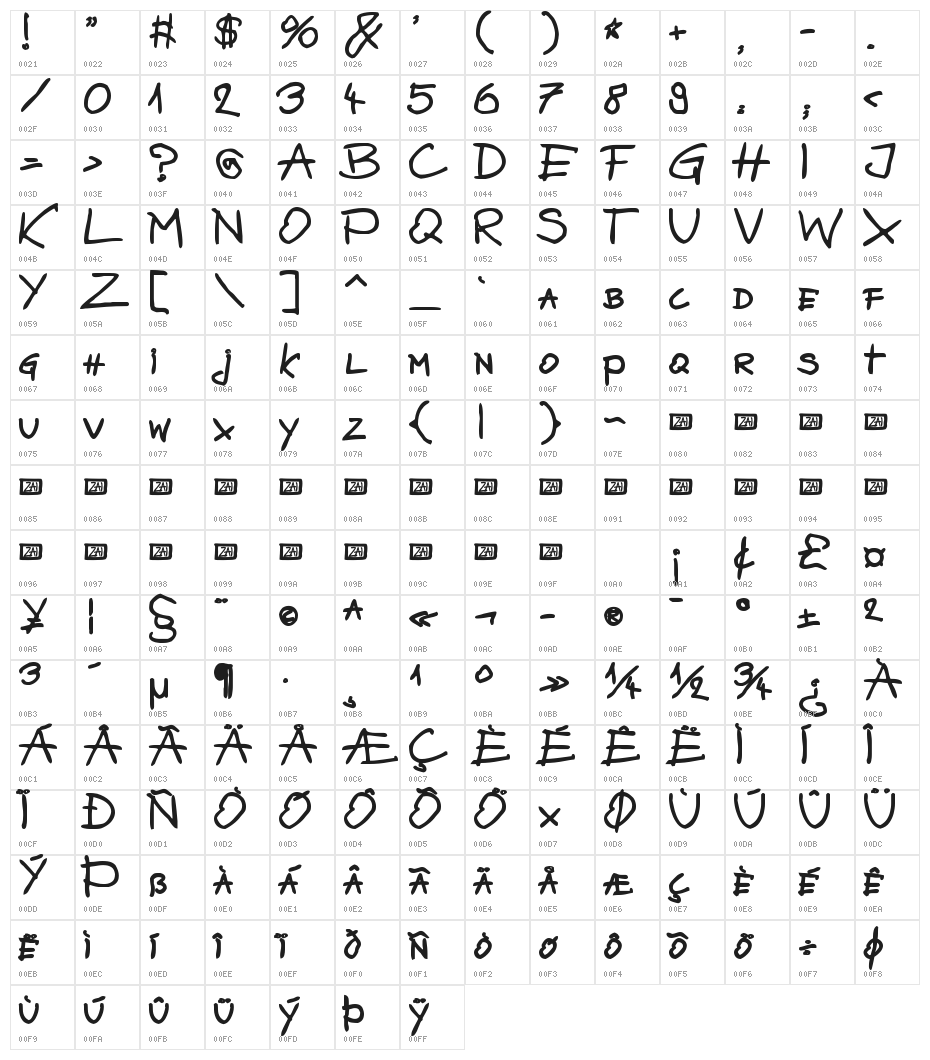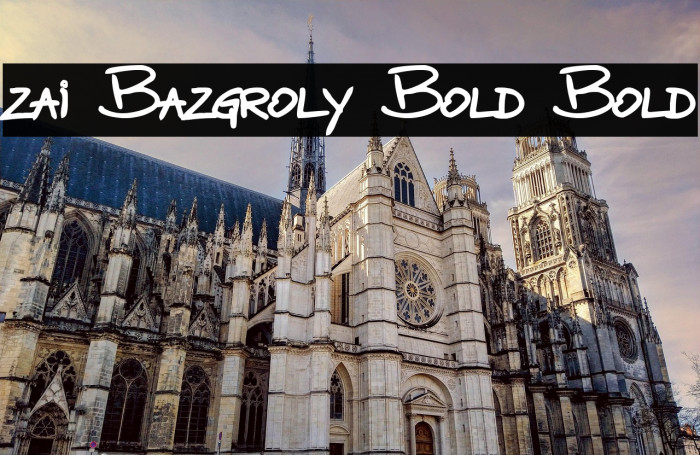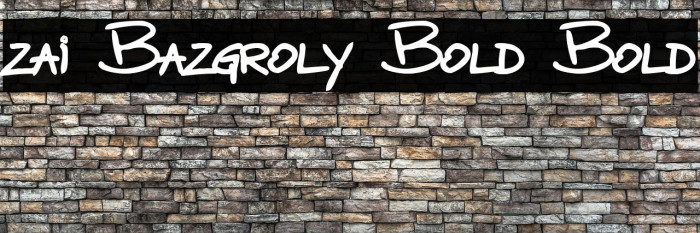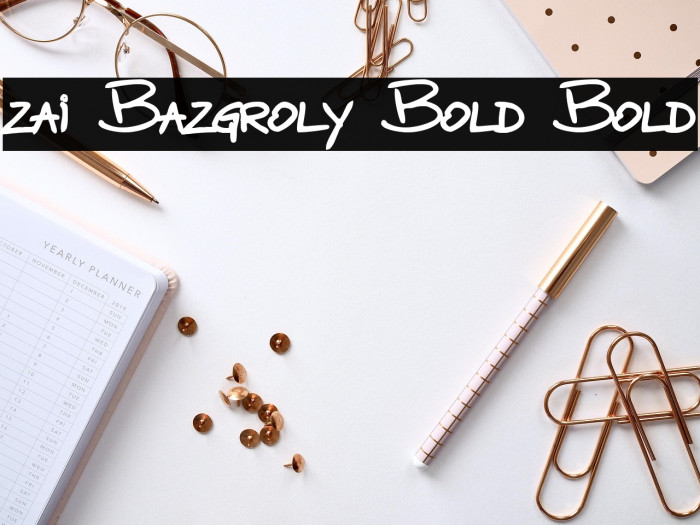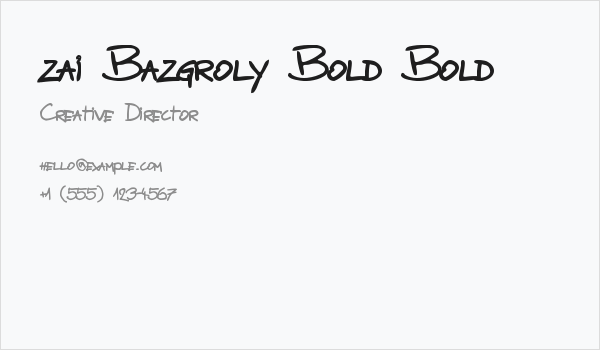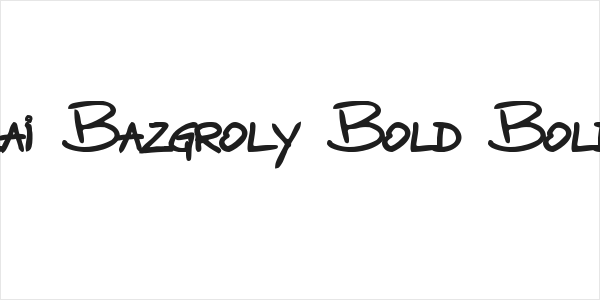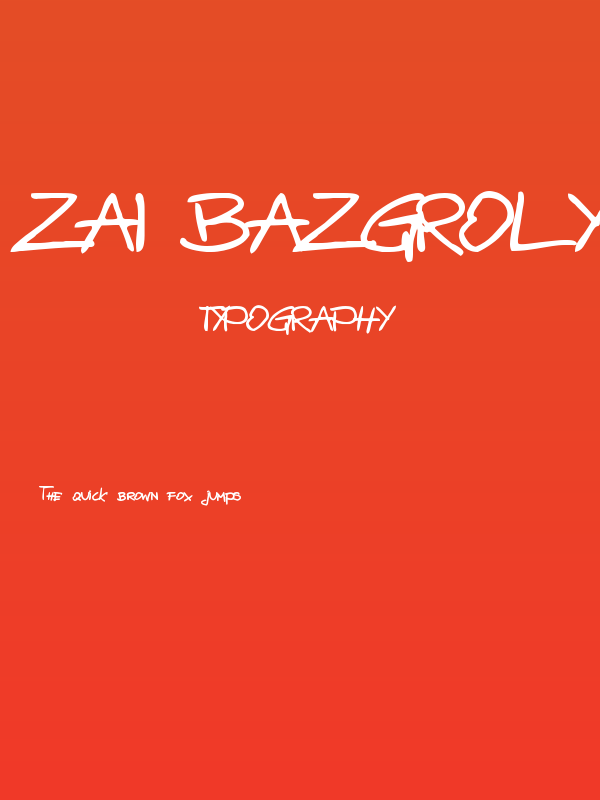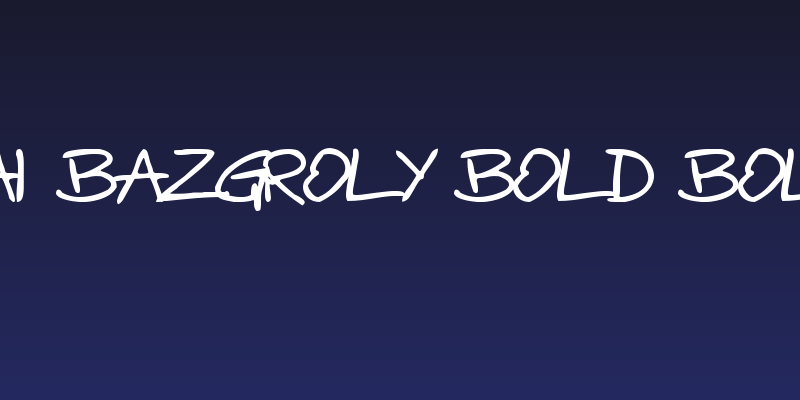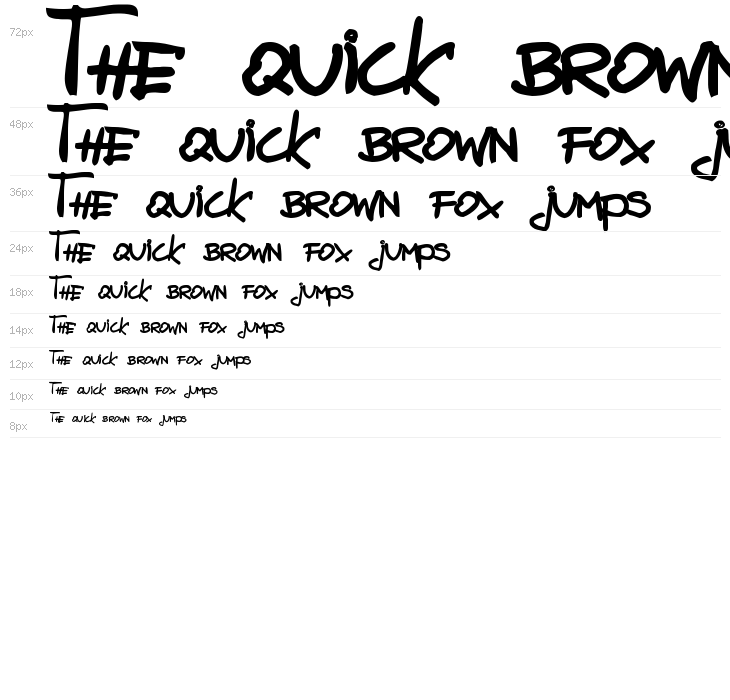
zai Bazgroly Bold Bold Font
zai Bazgroly Bold Bold Description
This font exhibits a bold, handwritten style with a playful and energetic appearance. The characters are crafted with a thick, consistent stroke that gives them a strong presence on the page. The letters are slightly slanted, adding a dynamic feel, while the irregularities in the shapes contribute to a casual, informal look. The uppercase and lowercase letters maintain a cohesive style, and the numbers are equally bold and expressive. Special characters are included, matching the overall aesthetic with their bold strokes and playful design.
| Overall Style | Playful, Casual |
| Use Case | Headlines, Posters, Informal Branding |
| Proposed Projects | Ideal for projects that require a fun and energetic touch, such as children's books, comic strips, posters, and casual branding. |